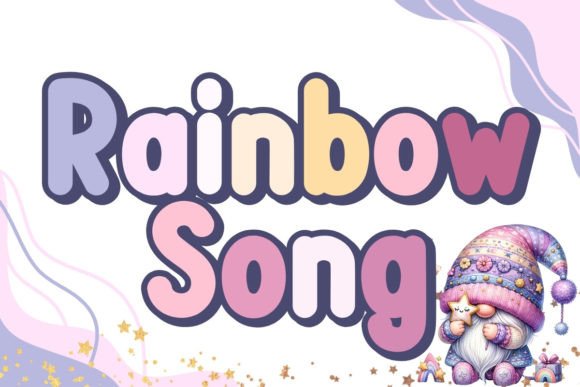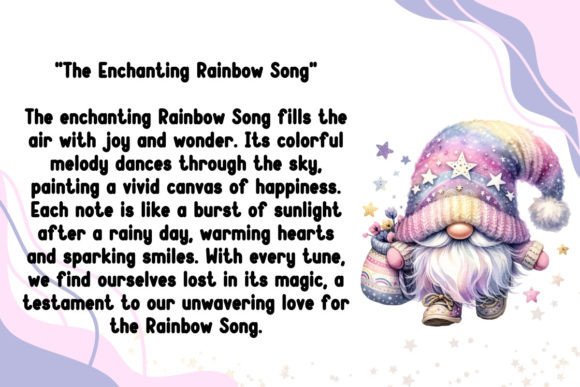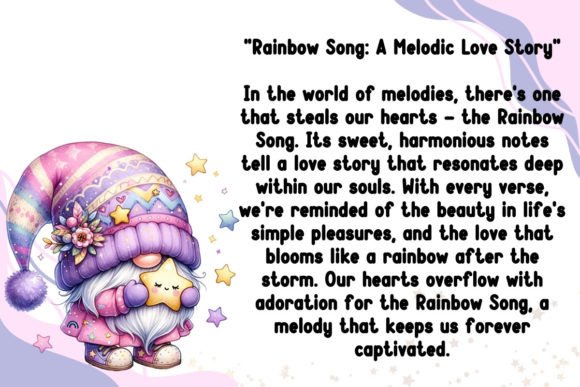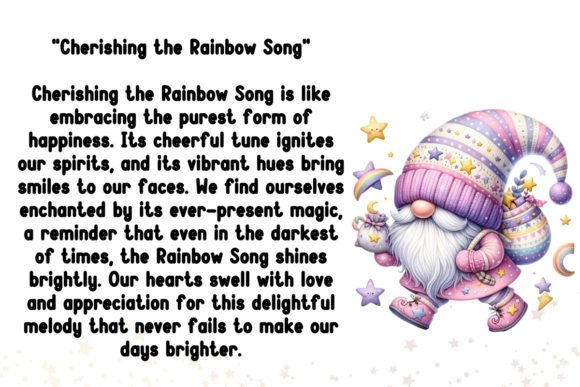
Rainbow Song Font: A Cute Handwritten Font for Cricut & Crafts
About the Rainbow Song Font
Step up your design game with Rainbow Song Font, a font that exudes confidence and style. Come and use my adorable handcrafted font, Rainbow Song. This font is inspired by the sweetest emotions of rainbows and stars. It’s a charming handwritten font that will add a touch of whimsy to your projects. Give your designs a sprinkle of magic with Rainbow Song!
Rainbow Song’s playful, hand-drawn aesthetic is ideal for projects requiring a touch of whimsy. It works exceptionally well in headlines, short text blocks on packaging, greeting cards, or social media posts. Its charming nature makes it perfect for branding projects targeting younger audiences or businesses emphasizing fun and creativity. Avoid using it for body text or lengthy paragraphs; its informal style is unsuitable for large amounts of continuous reading.
Pairing Rainbow Song effectively requires a contrasting typeface to provide visual balance. A clean sans-serif font like Lato or Open Sans would create a strong contrast, grounding the playful script. Alternatively, a more geometric sans-serif such as Montserrat could offer a modern counterpoint. For a more sophisticated feel, a subtle serif like Merriweather could be used for supporting text.
The overall personality of Rainbow Song is undeniably cheerful and approachable. Its handcrafted quality conveys authenticity and warmth. This makes it a powerful tool for brands looking to project a friendly, approachable image.
Rainbow Song Font Usage Examples
Rainbow Song Font Example